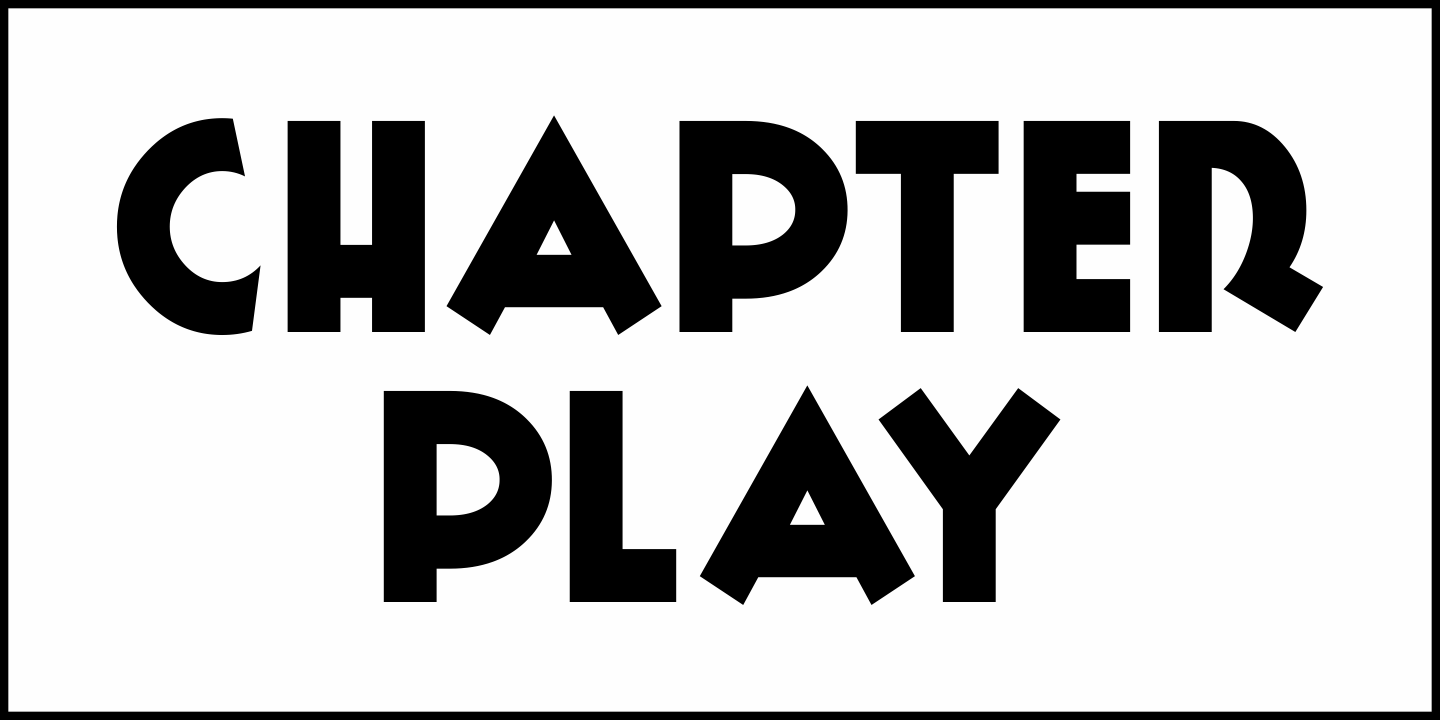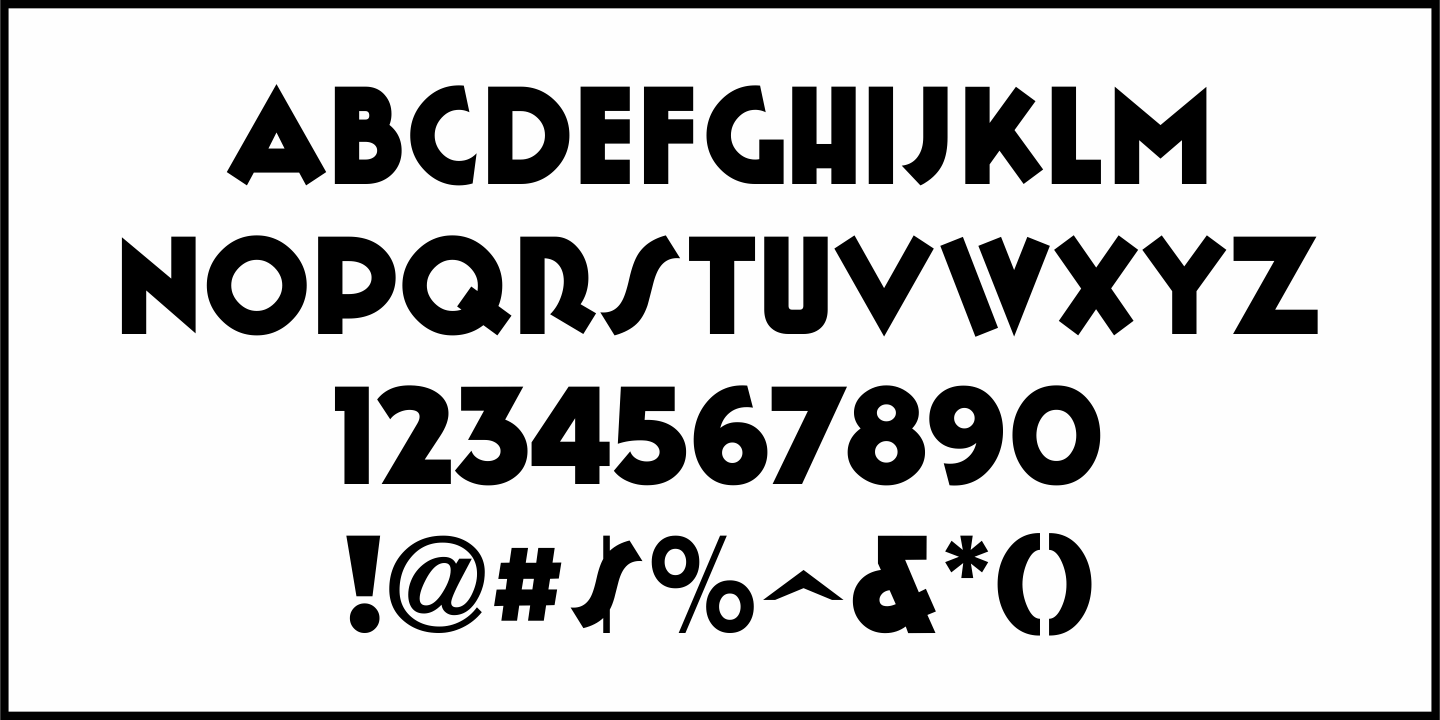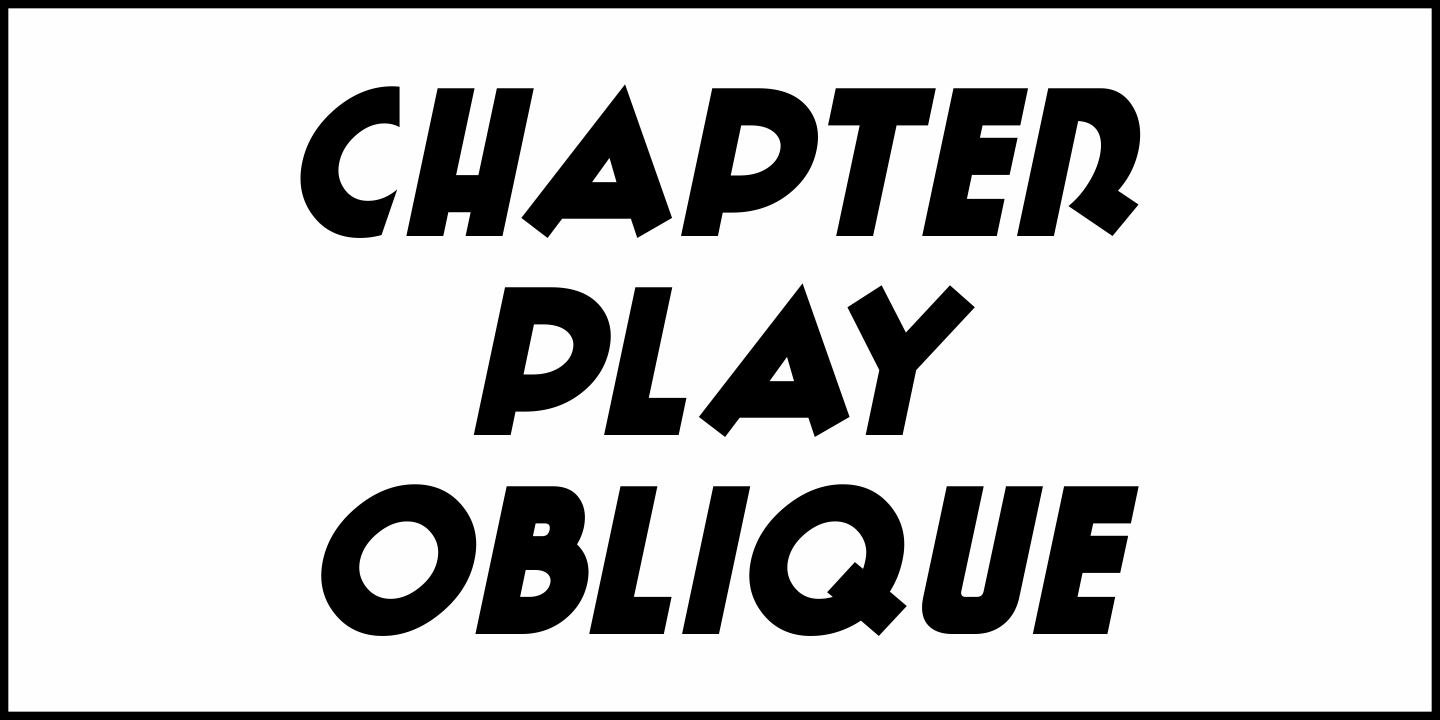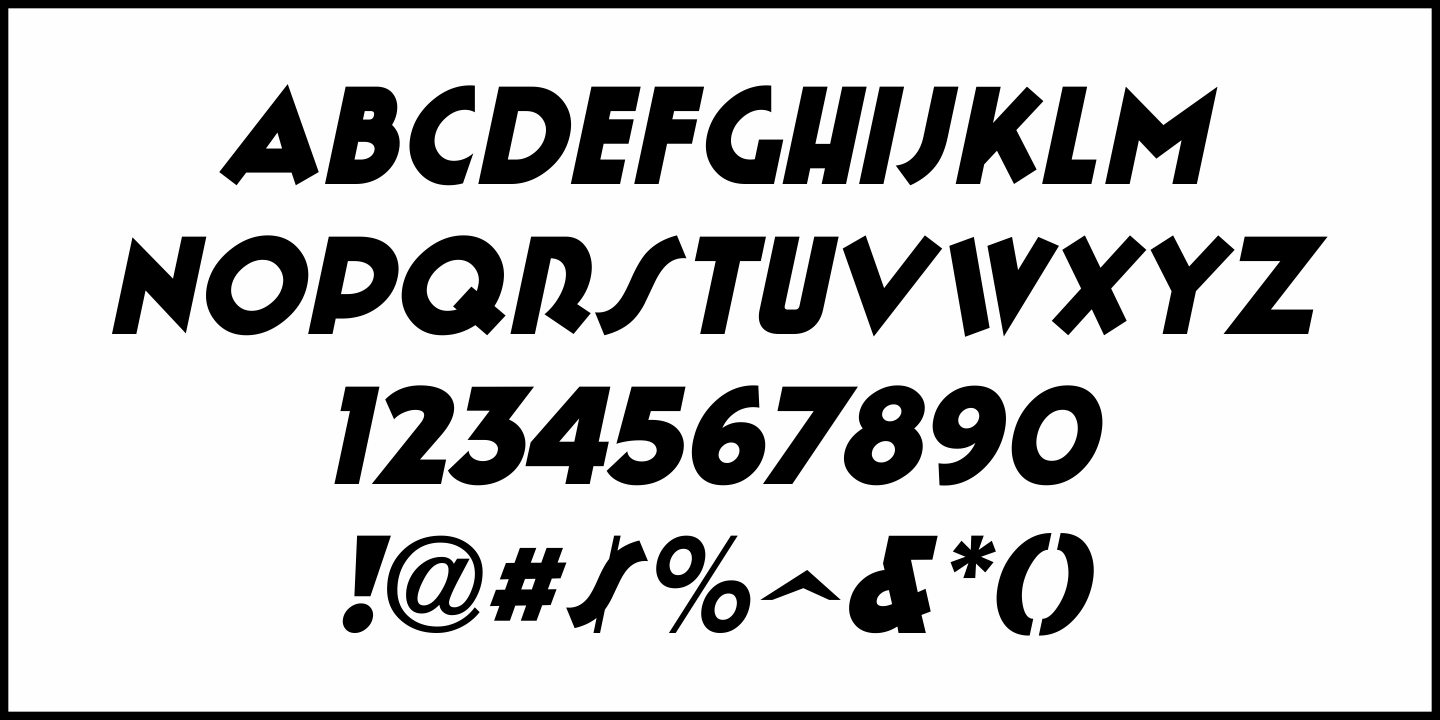
Chapter Play
An ad in the May 11, 1918 issue of The Exhibitor's Herald for a movie serial entitled "The Eagle's Eye" was hand lettered in a bold sans serif style with early Art Deco influences.
This is now available as Chapter Play JNL in both regular and oblique versions.
('Chapter Play' is another term for a movie serial.)